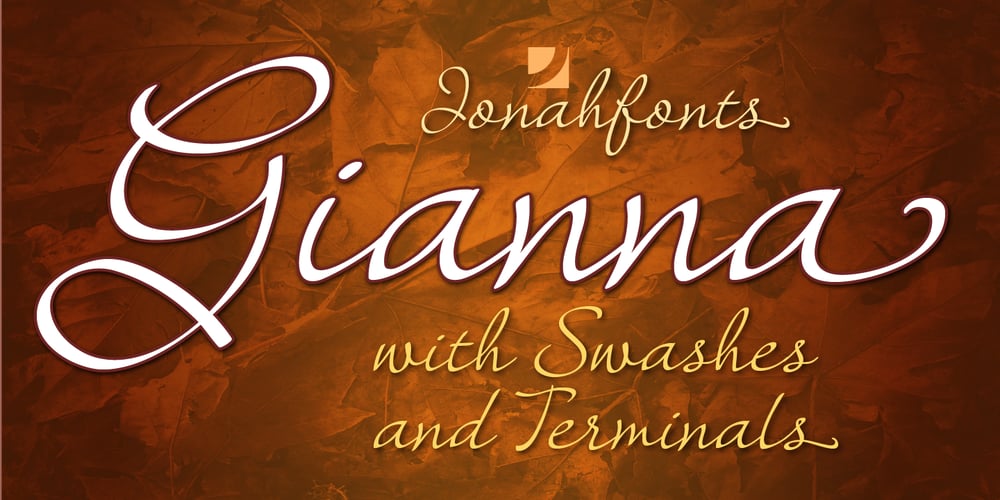
Gianna
Gianna font
Gianna Font Family was designed by John Nahmias and published by Jonahfonts. Gianna contains 1 styles and family package options. Gianna is designed for many applications for that calligraphy look. Invoking Contextual-Alternates all lower case text followed by a space will automatically prompt its Glyph Terminal, including many ligatures complete with latin diacritics.